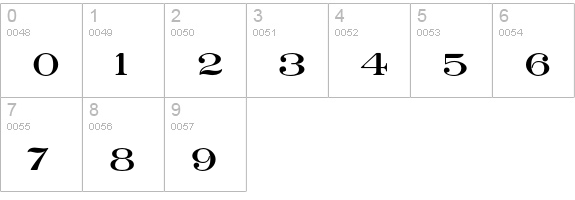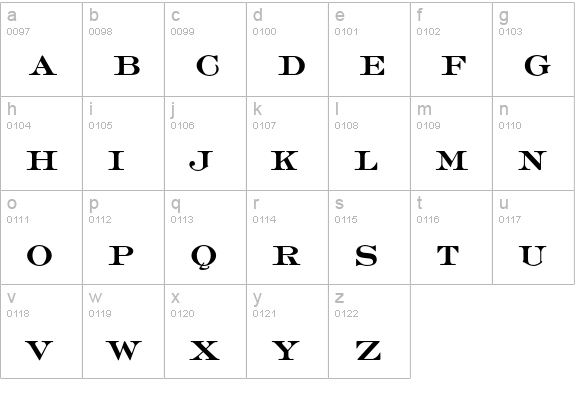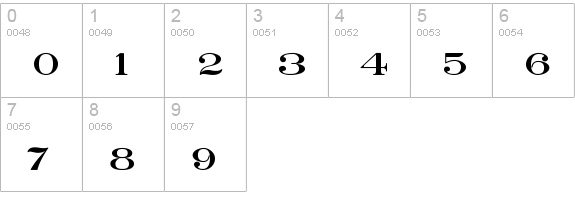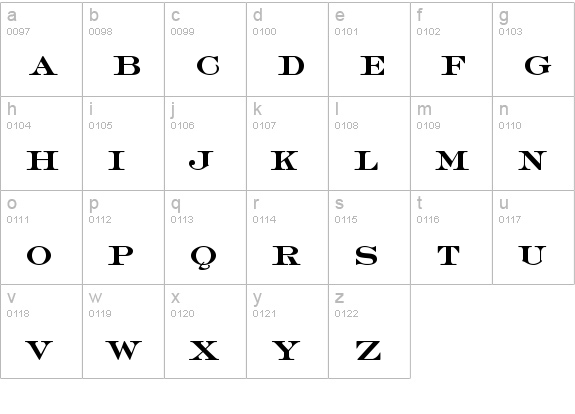
Medium Roman Std is a balanced, medium-weight variant in the Medium typeface family \xE2\x80\x94 well suited to sub-headlines, navigation, and balanced editorial work.
Medium Roman Std is a timeless and versatile font that exudes elegance and sophistication. With its medium weight and classic Roman styling, this font is suitable for a wide range of design projects, from editorial layouts to branding materials. The clean lines and balanced proportions of Medium Roman Std make it easy to read and visually appealing. The best part? Medium Roman Std is available for free download at FontsMarket.com. This means you can easily access and use this high-quality font in your projects without breaking the bank. Whether you're designing a poster, creating a logo, or working on a website, Medium Roman Std is sure to add a touch of refinement to your work. Don't miss out on this fantastic opportunity to enhance your designs with this beautiful font - download Medium Roman Std for free today!